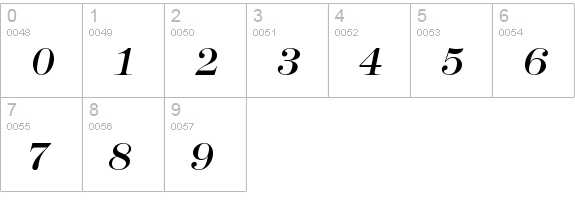
The ModernNo216EF-MediumItalic font is a sleek and sophisticated typeface that strikes the perfect balance between modernity and elegance. Its medium weight and italic style give it a sense of movement and fluidity, making it perfect for adding a touch of sophistication to any design project. With its clean lines and subtle curves, ModernNo216EF-MediumItalic exudes a sense of contemporary style that is sure to impress. Whether you're designing a website, creating a logo, or crafting a print advertisement, this font is versatile enough to work in a variety of applications. Best of all, ModernNo216EF-MediumItalic is available for free download at FontsMarket.com. So whether you're a seasoned designer looking to add a fresh new font to your collection or a beginner just starting out, you can easily access this stylish typeface and take your designs to the next level. Download ModernNo216EF-MediumItalic today and see the difference it can make in your projects!